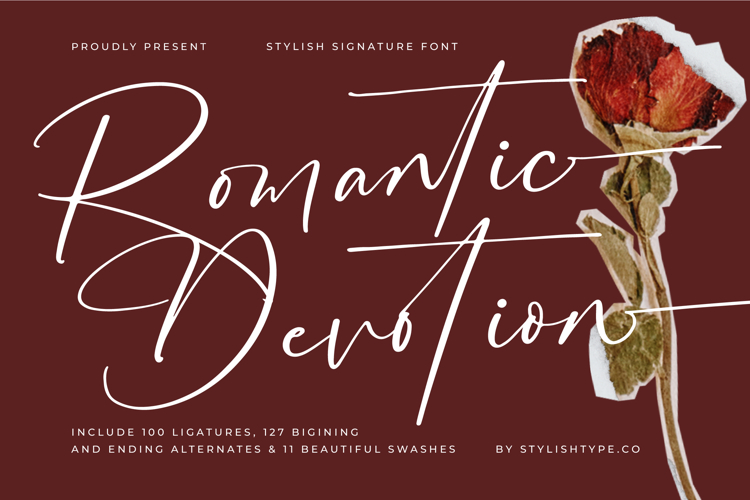
Romantic Devotion - Stylish Signature Font
Unlock unprecedented design versatility through extensive OpenType features. The power of Romantic Devotion - Stylish Signature Font lies in its massive toolkit, including 100 ligatures, 127 beginning and ending alternates, and 11 beautiful swashes. This wealth of stylistic options allows designers to craft truly unique wordmarks and titles, ensuring fluidity and eliminating awkward character connections. The results are fluid, seamlessly connected characters that appear entirely bespoke and authentic, making every design output uniquely customized.
Expand your reach into international markets without compromising style. Designed for global communication, Romantic Devotion - Stylish Signature Font offers robust language support critical for international engagement. With its extensive multilingual support, Romantic Devotion - Stylish Signature Font adapts seamlessly across global markets, making it incredibly versatile for international projects. This crucial adaptability ensures that your premium brand message resonates universally, maintaining its distinctive, elegant character worldwide across diverse scripts and languages.
Define your niche and capture high-end clientele instantly. Romantic Devotion - Stylish Signature Font is perfect for luxury branding, sophisticated wedding invitations, high-end cosmetic packaging, exclusive editorial headlines, and personalized product design. Use it to craft elegant logotypes, high-end watermarks, and memorable social media graphics that demand attention. Invest in this premium script today and ensure your visual identity conveys unmistakable quality and deep emotional resonance across all digital and print mediums.